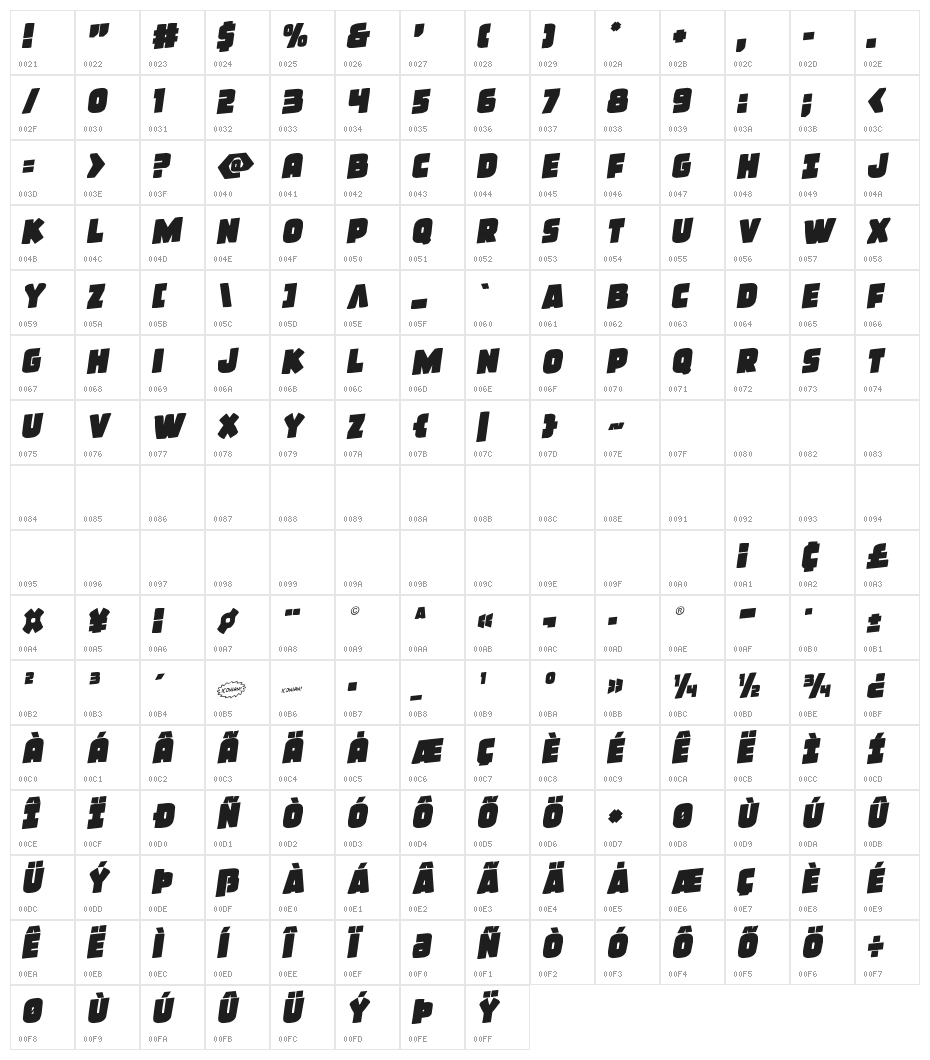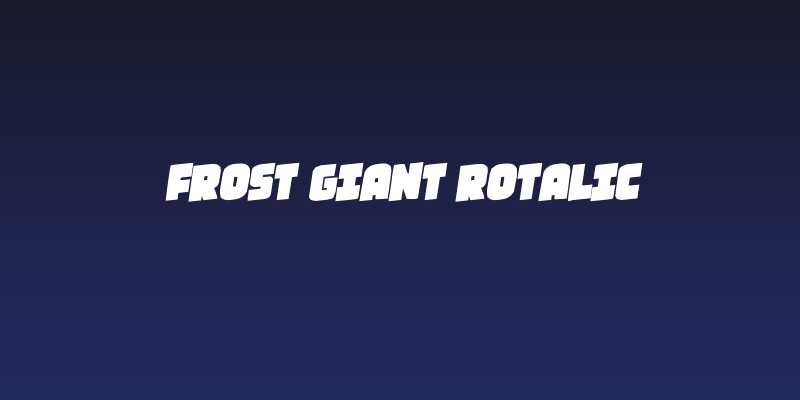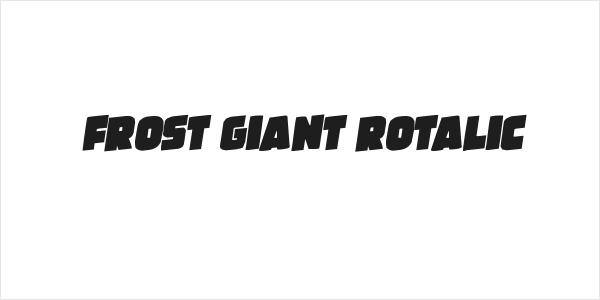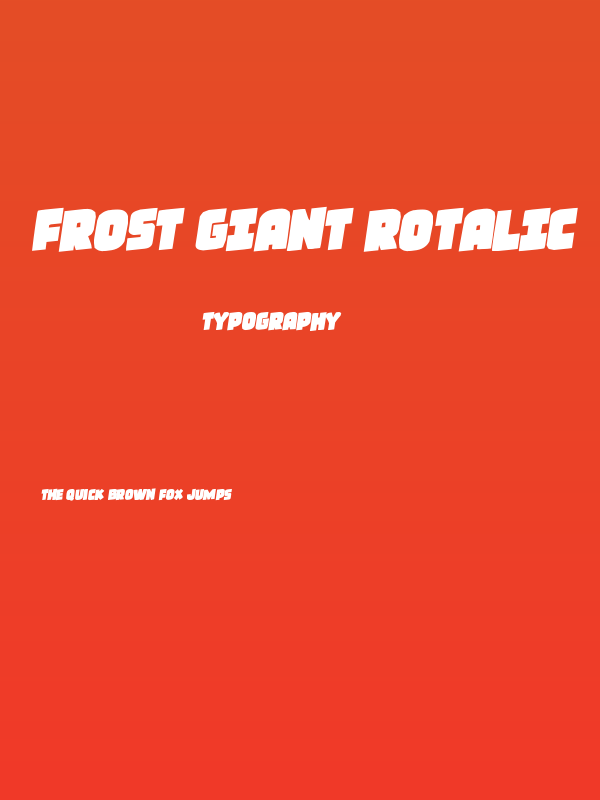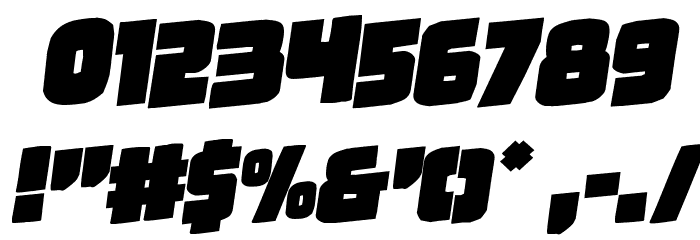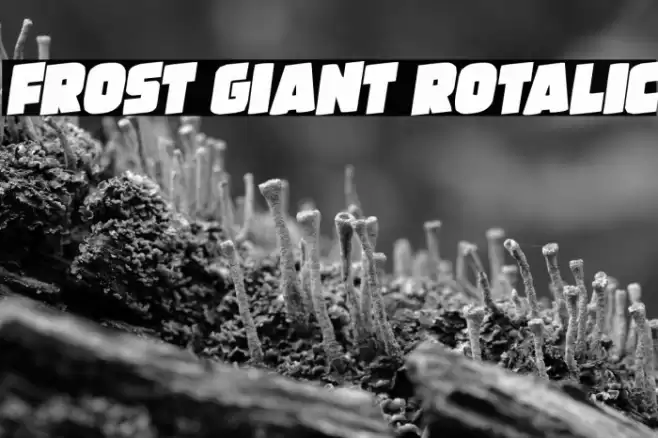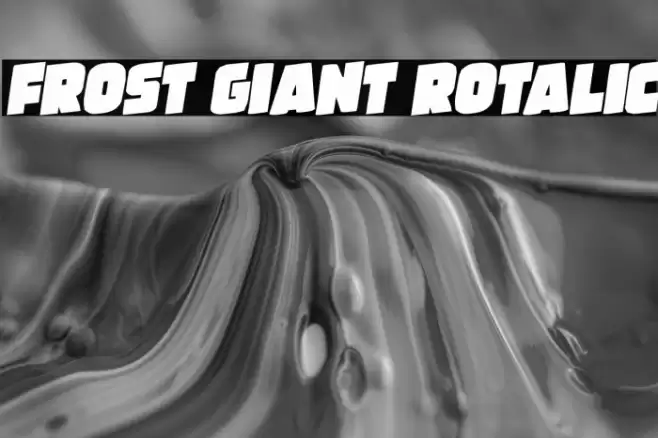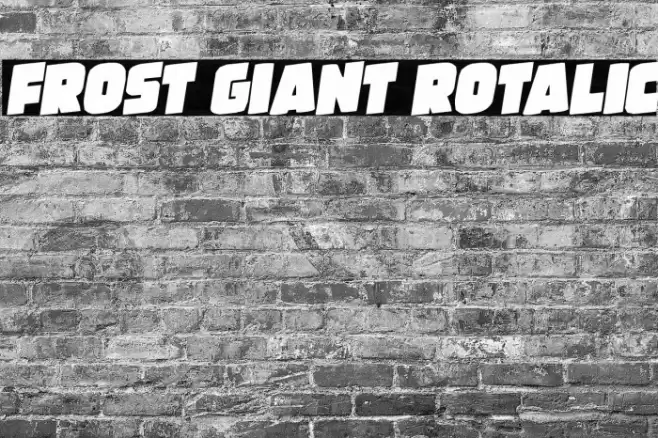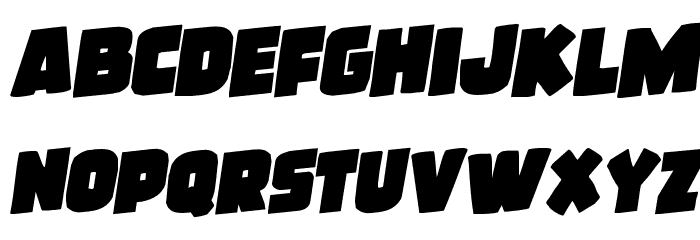
Frost Giant Rotalic Font
Frost Giant Rotalic Description
This font features bold, angular characters with a strong, dynamic presence. The letters are heavily slanted, giving a sense of movement and energy. The thick strokes and sharp edges contribute to a powerful and impactful appearance, making it ideal for attention-grabbing designs. The uppercase and lowercase letters maintain a consistent style, while the numerals and special characters are equally bold and assertive. This font is perfect for projects that require a strong visual impact.
| Proposed Projects | Ideal for sports branding, action movie posters, video game titles, and dynamic advertising campaigns. |